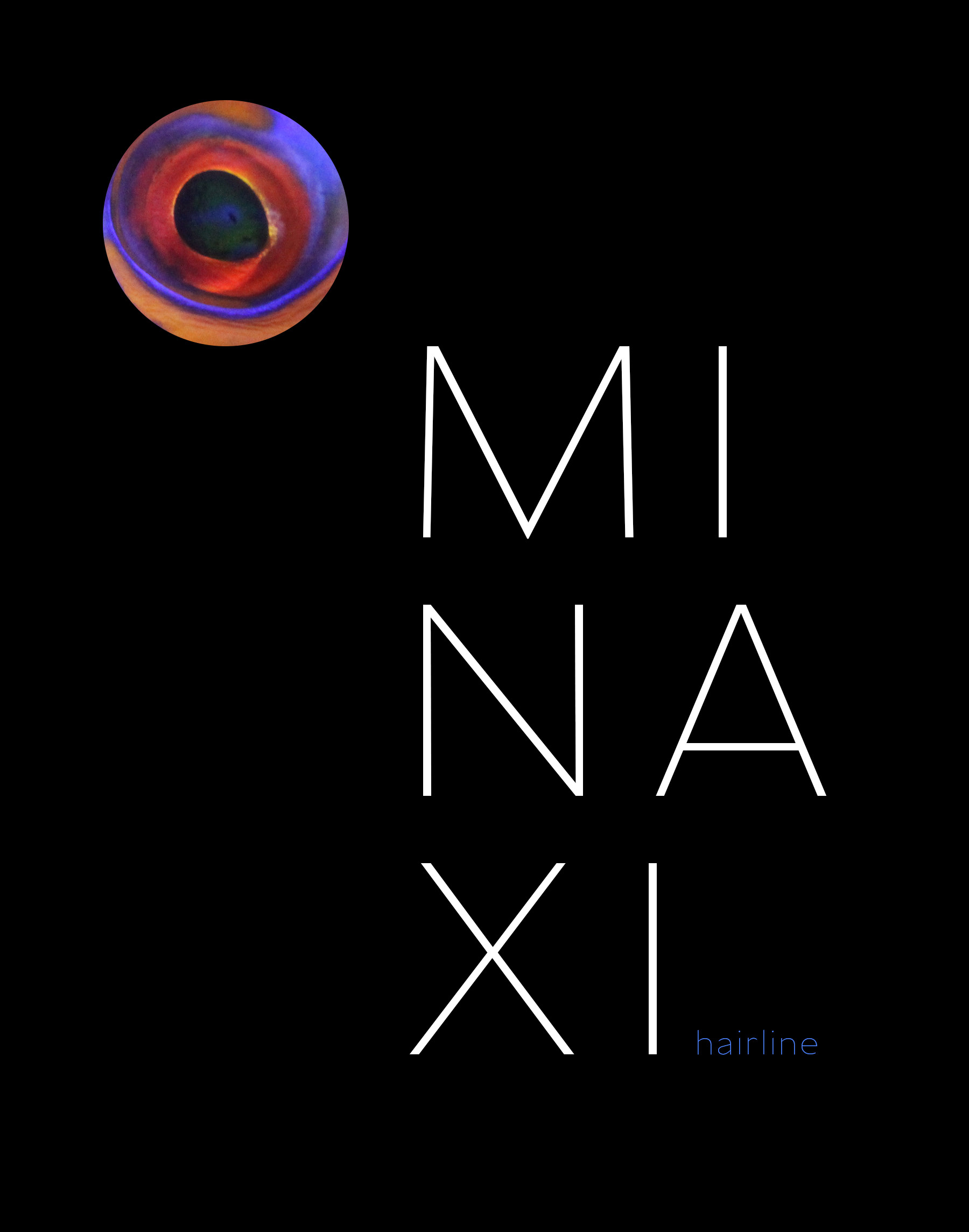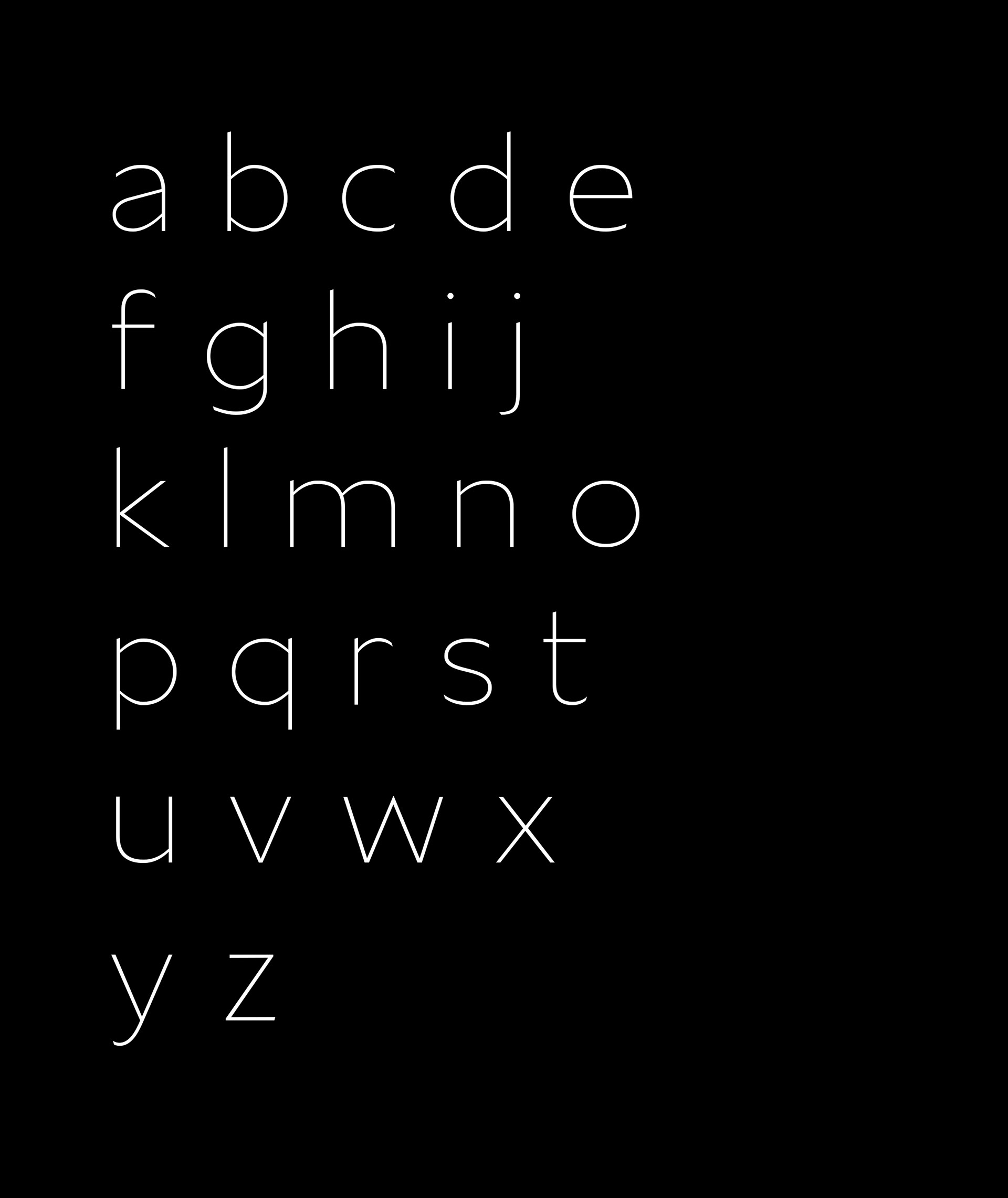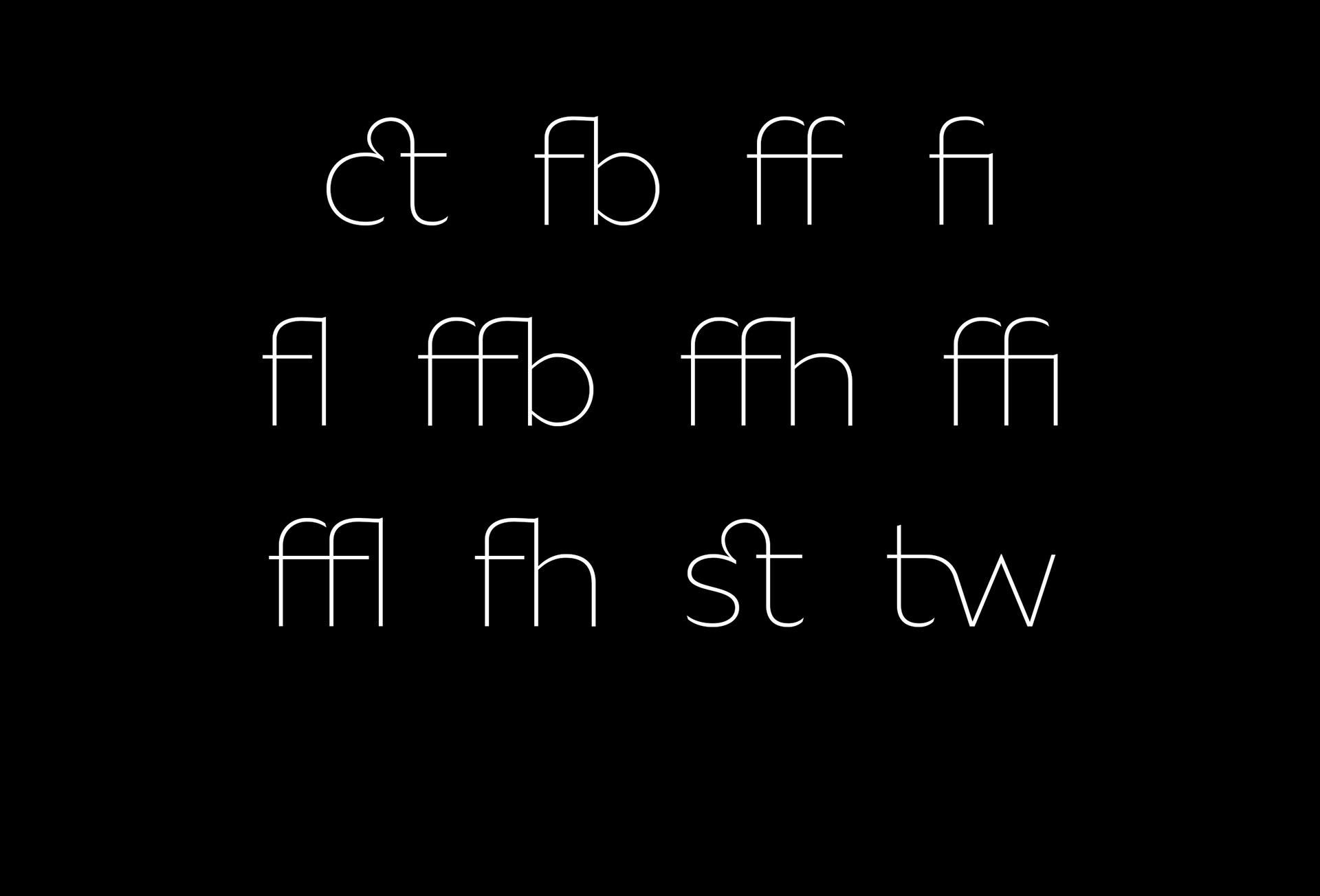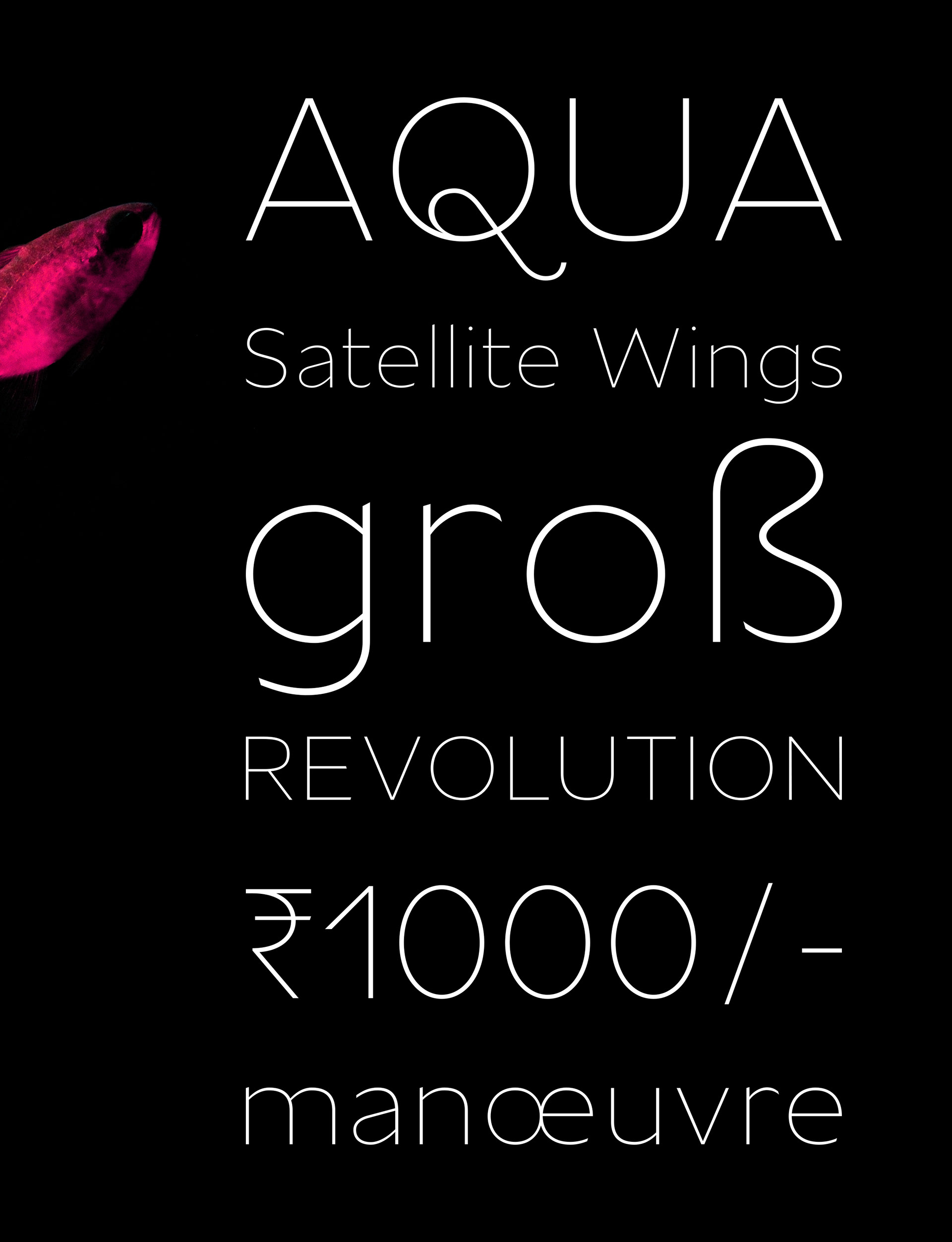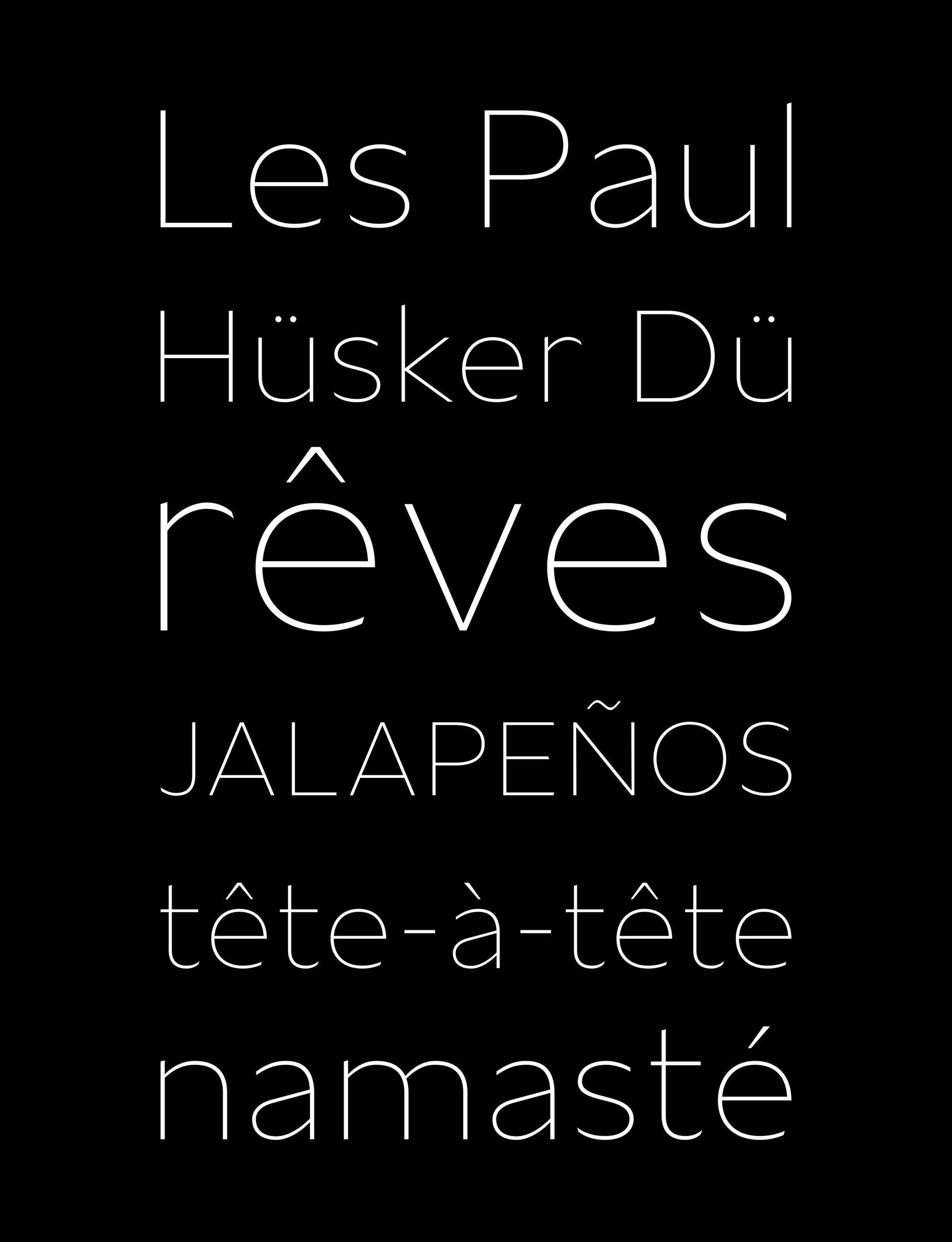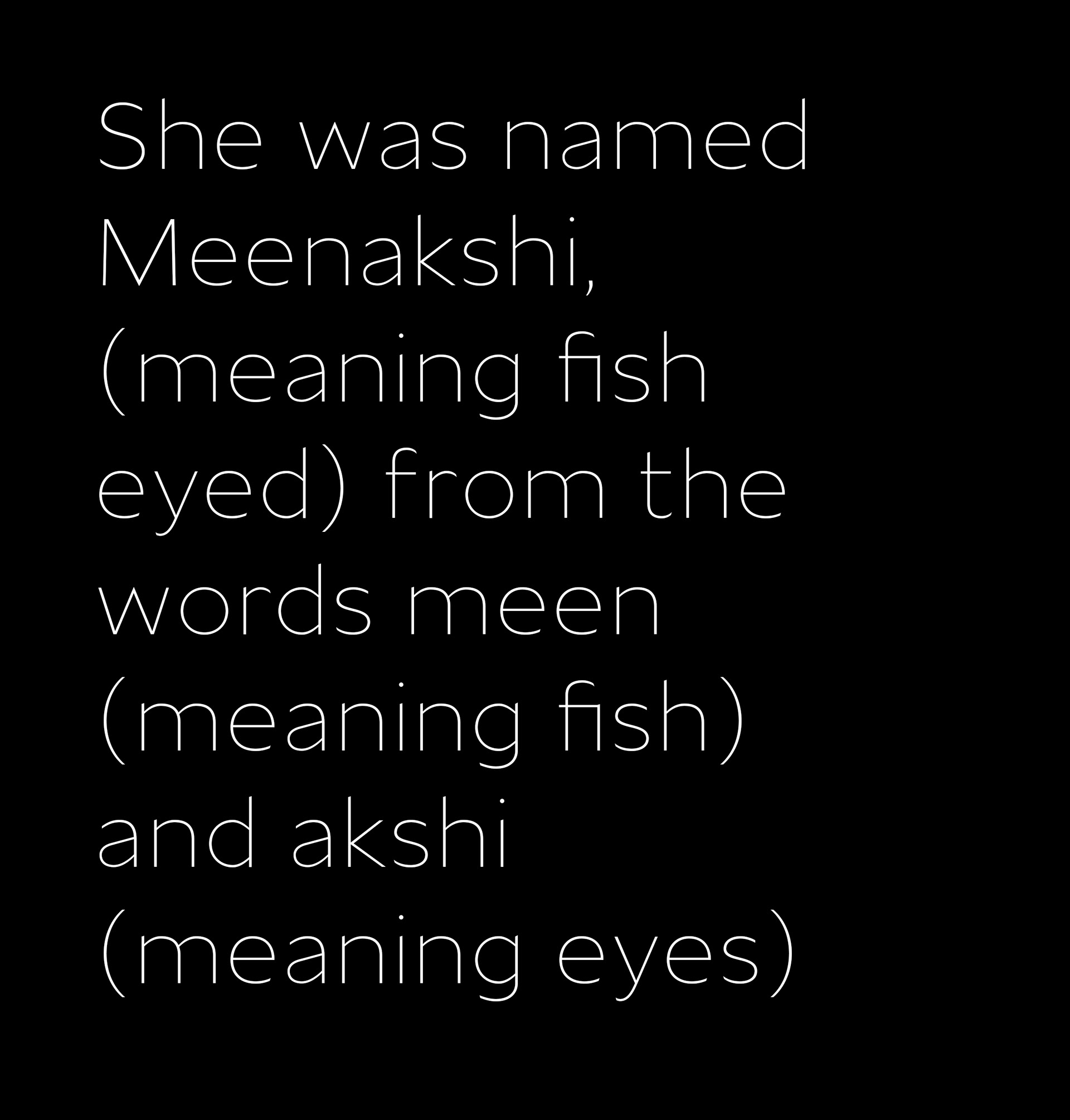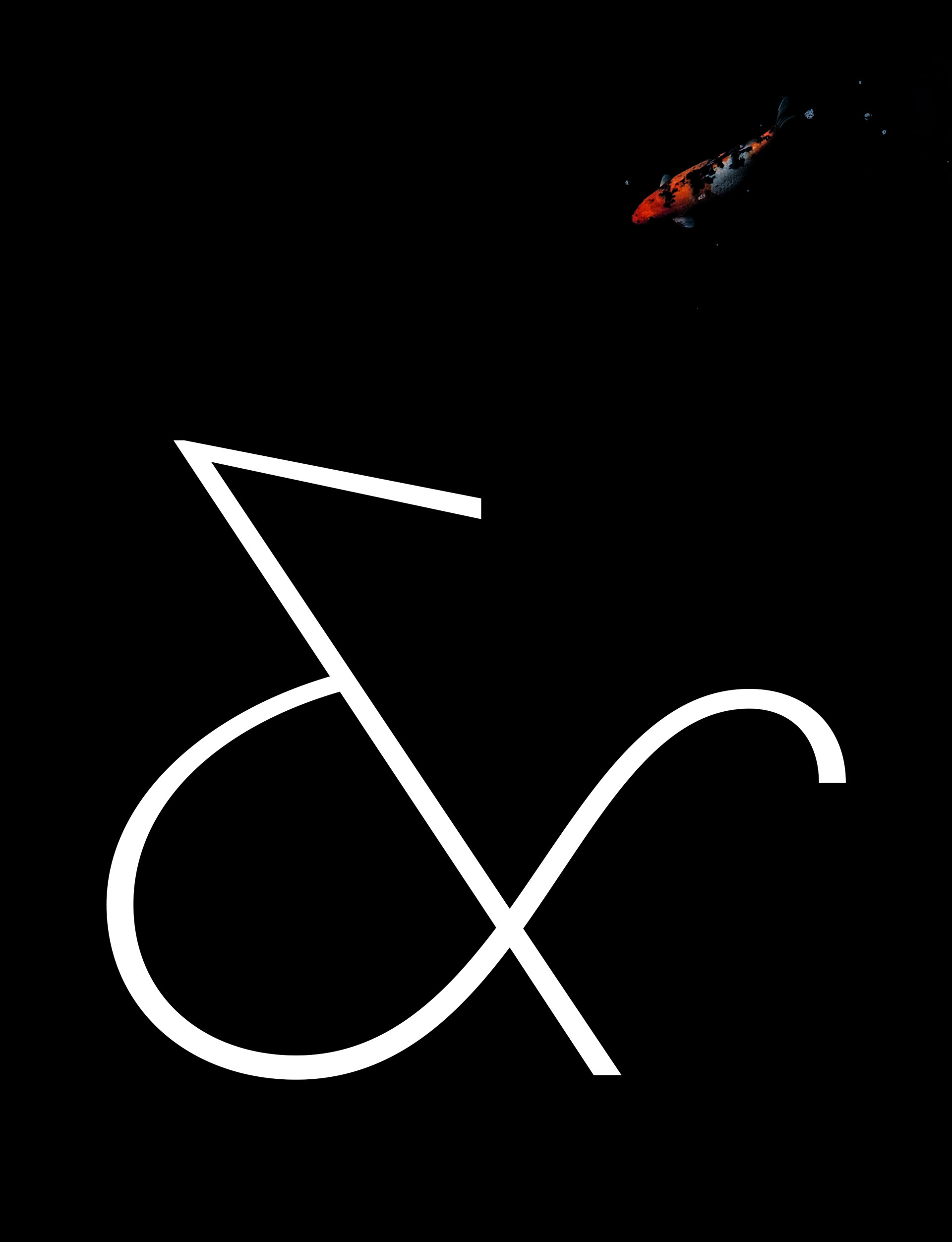
Minaxi is one of those typeface projects of mine that I haven’t been able to finish yet. I began working on it around this time last year as a fun, personal project. However, because of academics and other commitments I just haven’t been able to make time to work on it any further. The hairline text-face is the one that’s completely done. It has been sitting on my computer for about 6 months now and because I’m not sure when I’ll finish the rest, I thought I might as well share it here.
It's suitable for setting type at large sizes and features 333 glyphs, including several ligatures. I named it after my mom, Meenakshi.